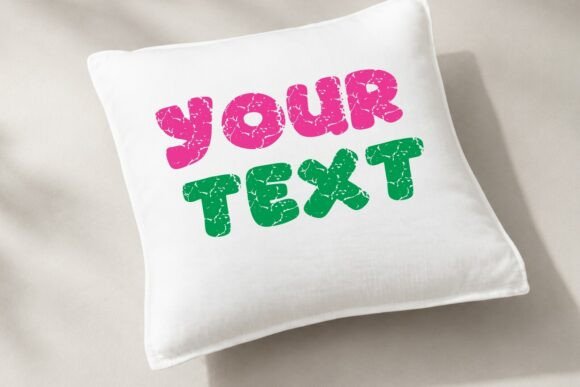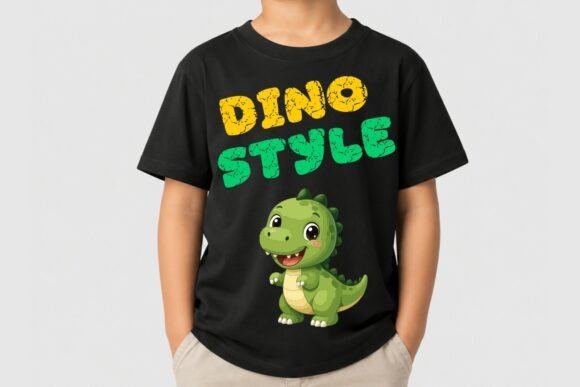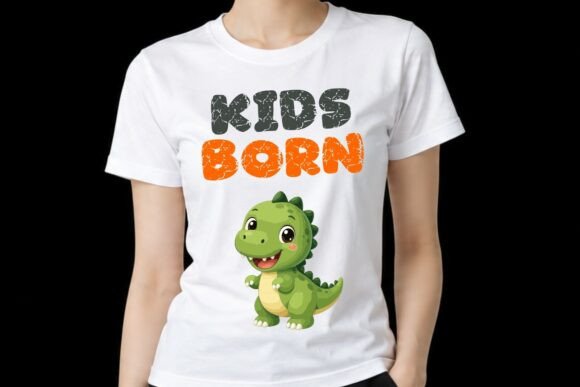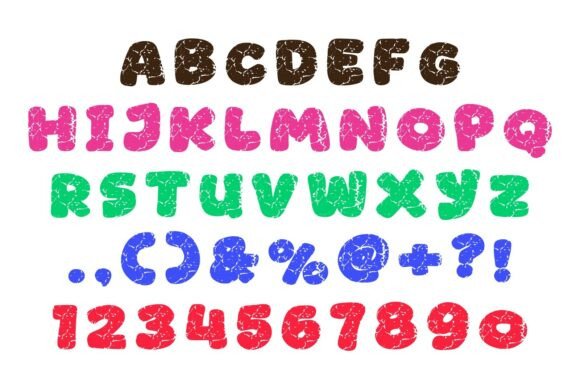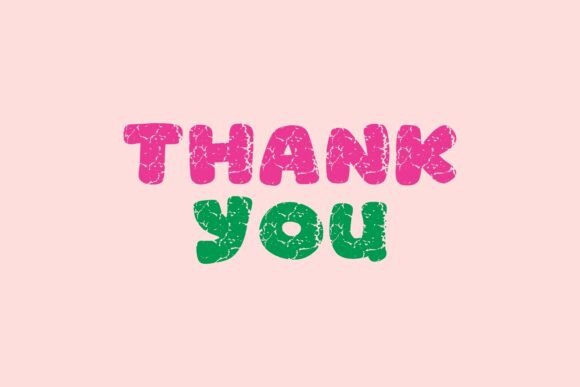
Cute Grunge Font: Add a Playful Touch to Your Designs
Are you tired of using the same old fonts in your designs? Do you want to add a playful and creative touch to your projects? Look no further than the Cute Grunge Font! This fun and colorful cartoon display font is perfect for designers who want to bring a cheerful energy and a handmade feel to their work.
What is Cute Grunge Font?
Cute Grunge is a unique and eye-catching font that features playful bubble-style lettering and distressed textures. The bold rounded shapes combined with grunge details create a stylish balance between cute and edgy, making it perfect for a wide range of design projects. Whether you’re working on kids’ projects, playful branding, posters, t-shirt designs, packaging, stickers, social media graphics, YouTube thumbnails, or comic-inspired artwork, Cute Grunge is the perfect choice.
Key Features of Cute Grunge Font
- Playful bubble-style lettering: The Cute Grunge Font features fun and playful lettering that is sure to grab attention.
- Unique distressed textures: The font’s distressed textures give it a creative and handmade feel.
- Bold rounded shapes: The bold rounded shapes of the font make it perfect for designs that need a playful touch.
- Grunge details: The grunge details add an edgy touch to the font, making it perfect for designers who want to balance cute and edgy.
Why Use Cute Grunge Font?
There are many reasons why designers love the Cute Grunge Font. Here are just a few:
- Adds a playful touch: The Cute Grunge Font is perfect for designers who want to add a playful touch to their designs.
- Perfect for kids’ projects: The font’s playful and colorful style makes it perfect for kids’ projects, such as children’s books, educational materials, and kids’ clothing.
- Ideal for branding: The font’s unique and eye-catching style makes it perfect for playful branding, such as logos, packaging, and advertising.
Design Ideas Using Cute Grunge Font
The Cute Grunge Font is a versatile font that can be used in a wide range of design projects. Here are just a few ideas to get you started:
- Kids’ projects: Use the Cute Grunge Font to create fun and playful kids’ projects, such as children’s books, educational materials, and kids’ clothing.
- Playful branding: Use the font to create playful and eye-catching branding, such as logos, packaging, and advertising.
- Posters and flyers: Use the font to create eye-catching posters and flyers that will grab attention.
- T-shirt designs: Use the font to create fun and playful t-shirt designs that will appeal to kids and adults alike.
- Social media graphics: Use the font to create eye-catching social media graphics that will stand out on social media.
Tips for Using Cute Grunge Font
Here are a few tips for using the Cute Grunge Font:
- Use it sparingly: While the Cute Grunge Font is fun and playful, it can be overwhelming if used too much. Use it sparingly to add a touch of playfulness to your designs.
- Experiment with colors: The font’s distressed textures and playful style make it perfect for experimenting with different colors and color combinations.
- Pair it with other fonts: The Cute Grunge Font can be paired with other fonts to create a unique and eye-catching design.
The Cute Grunge Font is a fun and playful font that is perfect for designers who want to add a creative and handmade touch to their designs. With its playful bubble-style lettering, unique distressed textures, and bold rounded shapes, this font is perfect for a wide range of design projects. Whether you’re working on kids’ projects, playful branding, posters, t-shirt designs, packaging, stickers, social media graphics, YouTube thumbnails, or comic-inspired artwork, the Cute Grunge Font is the perfect choice.